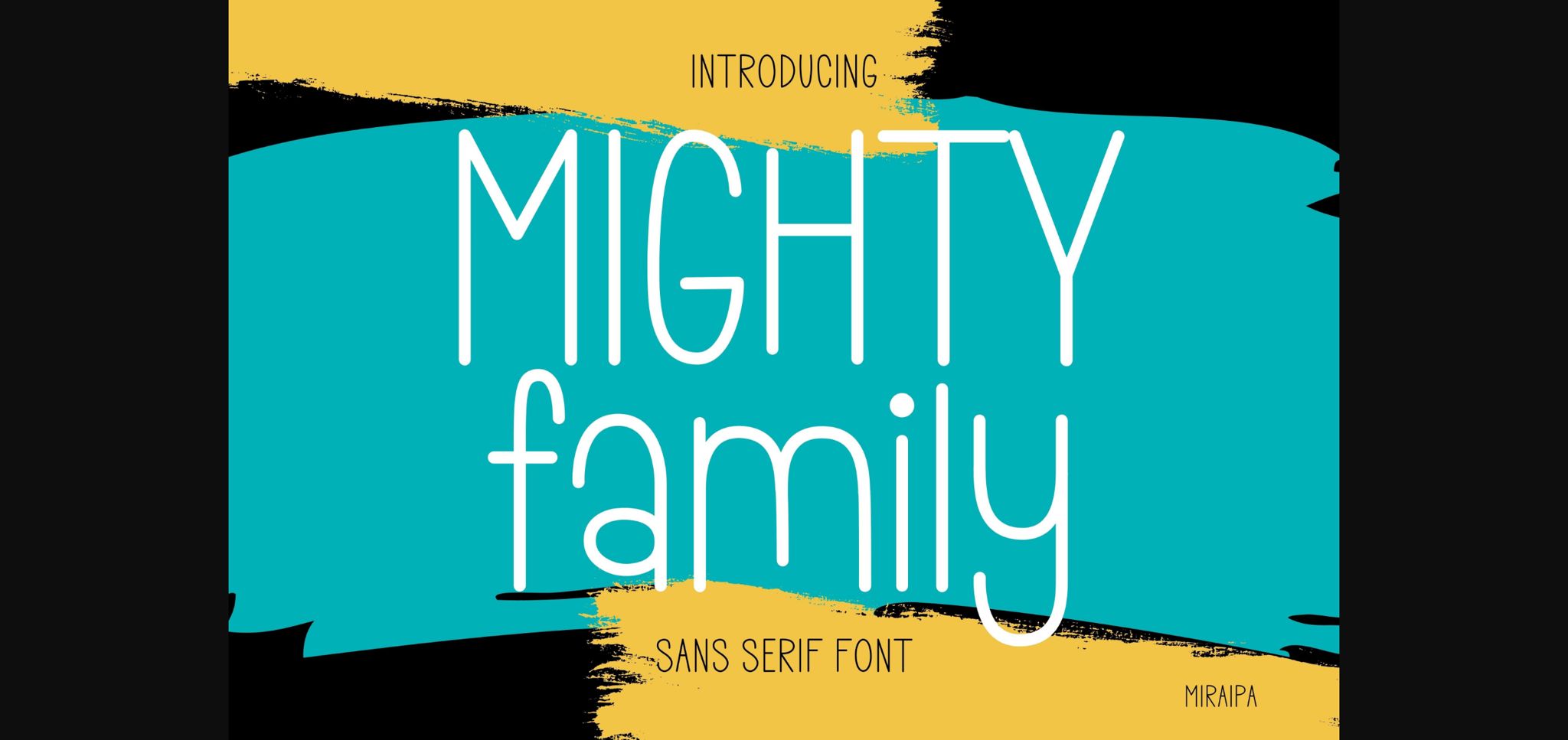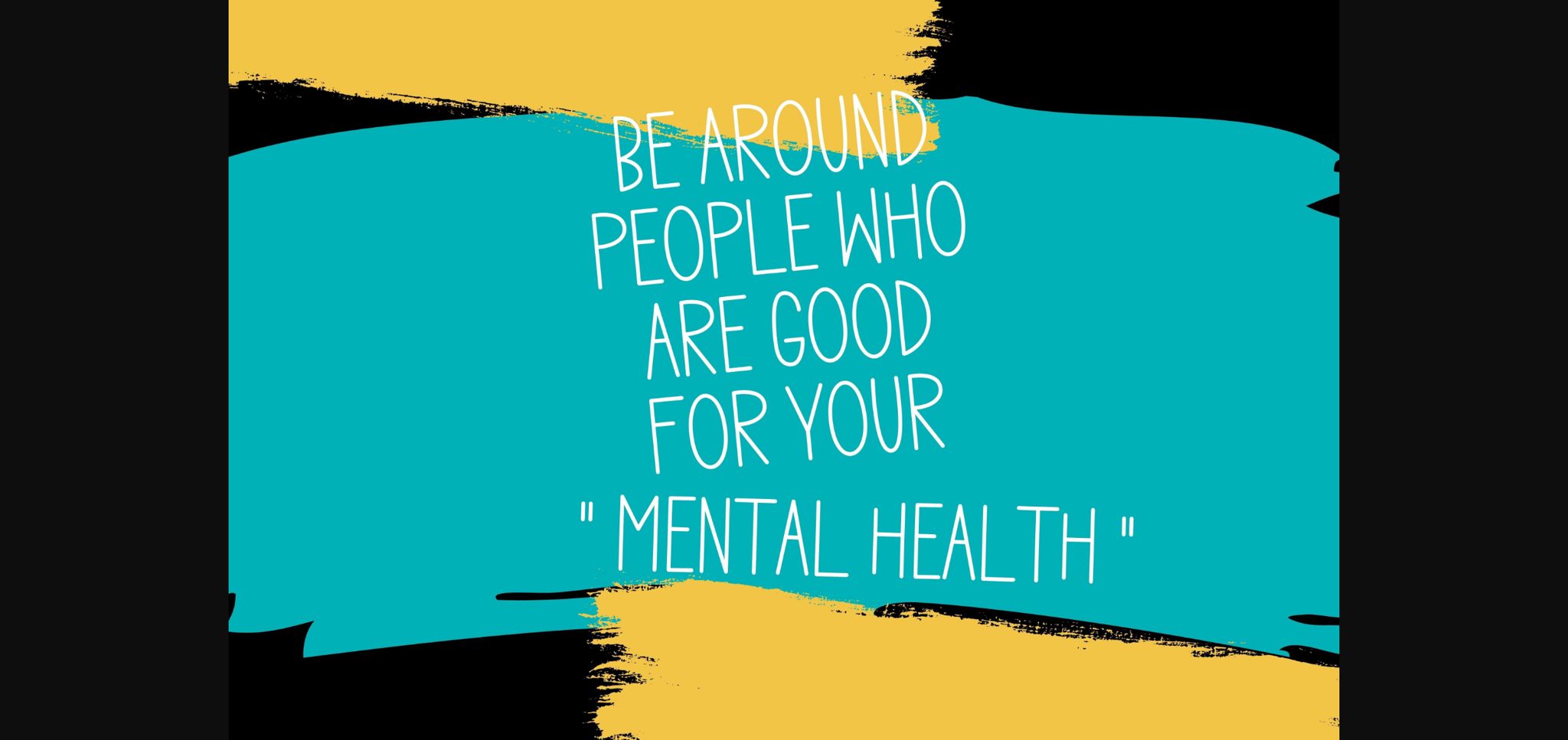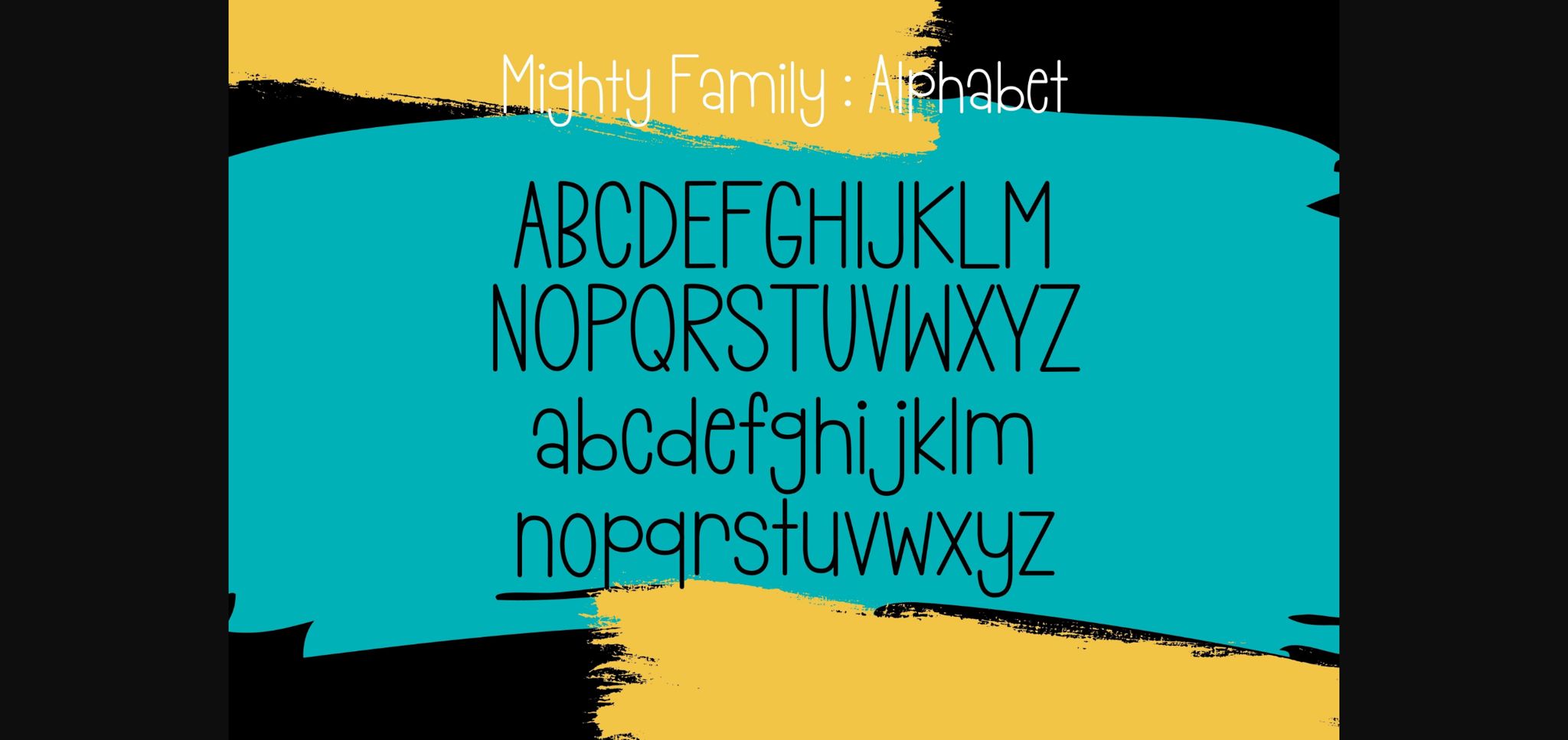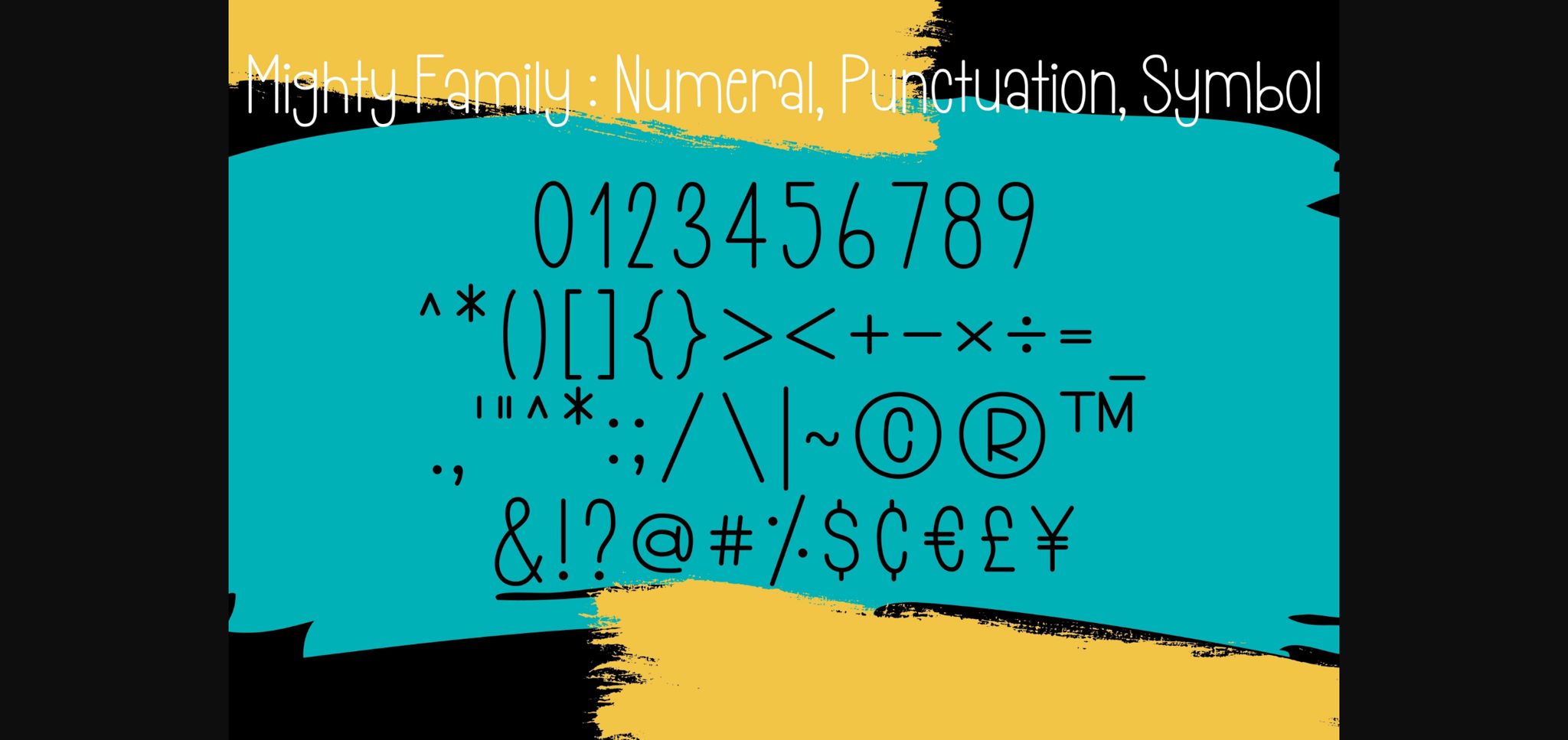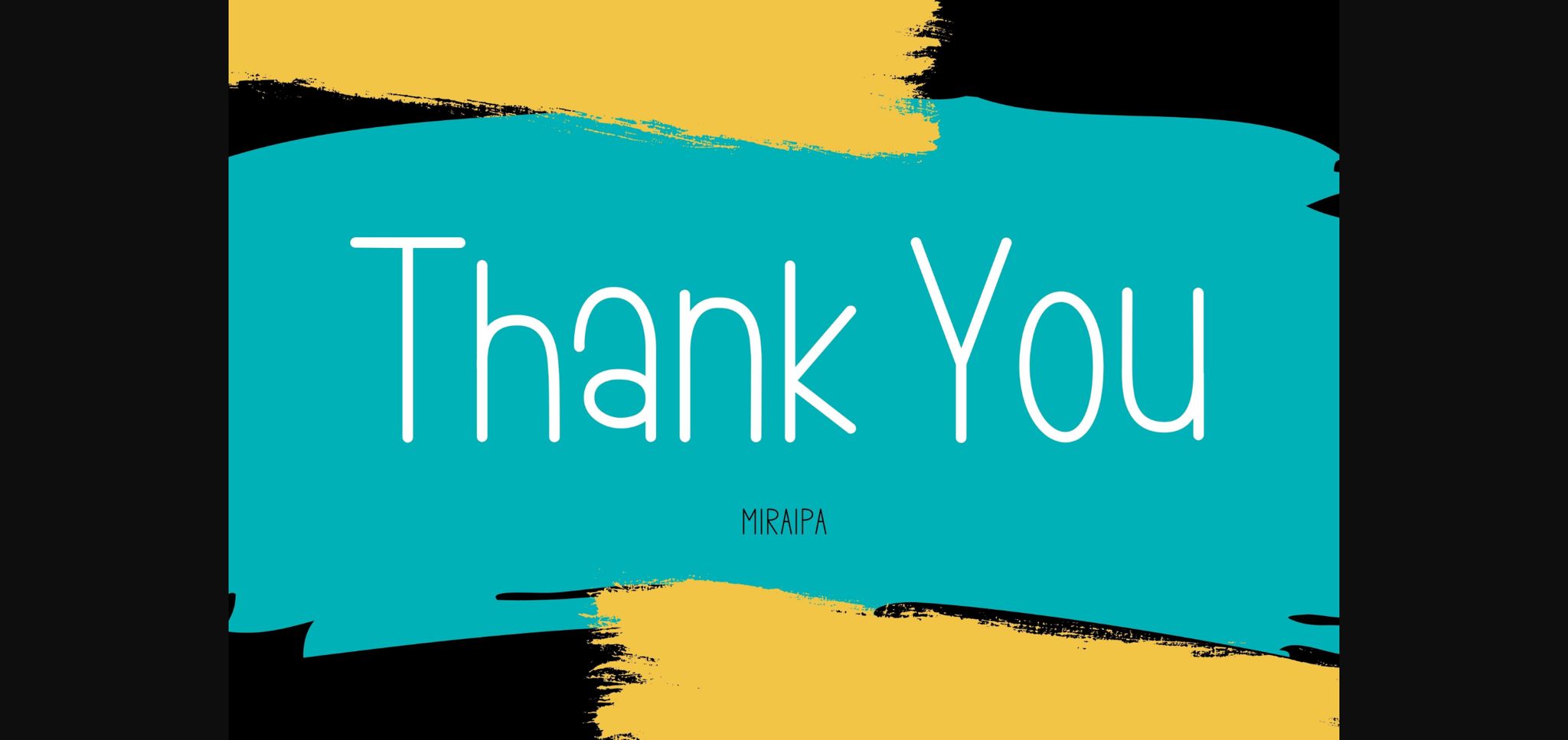
Mighty Family Font
About Mighty Family Font
Mighty Family is a friendly and cute sans serif font. Whether you’re using it for crafts, digital design, presentations, or making greeting cards, this font has the potential to become your favorite go-to font, no matter the occasion!